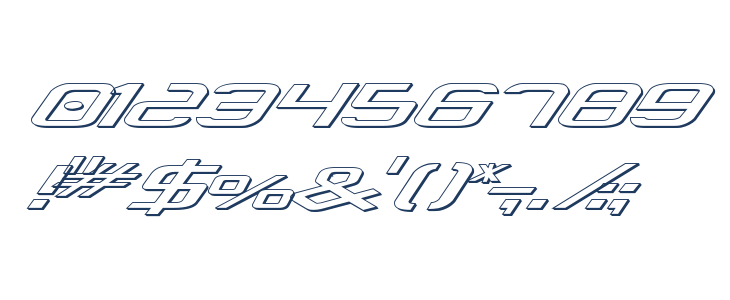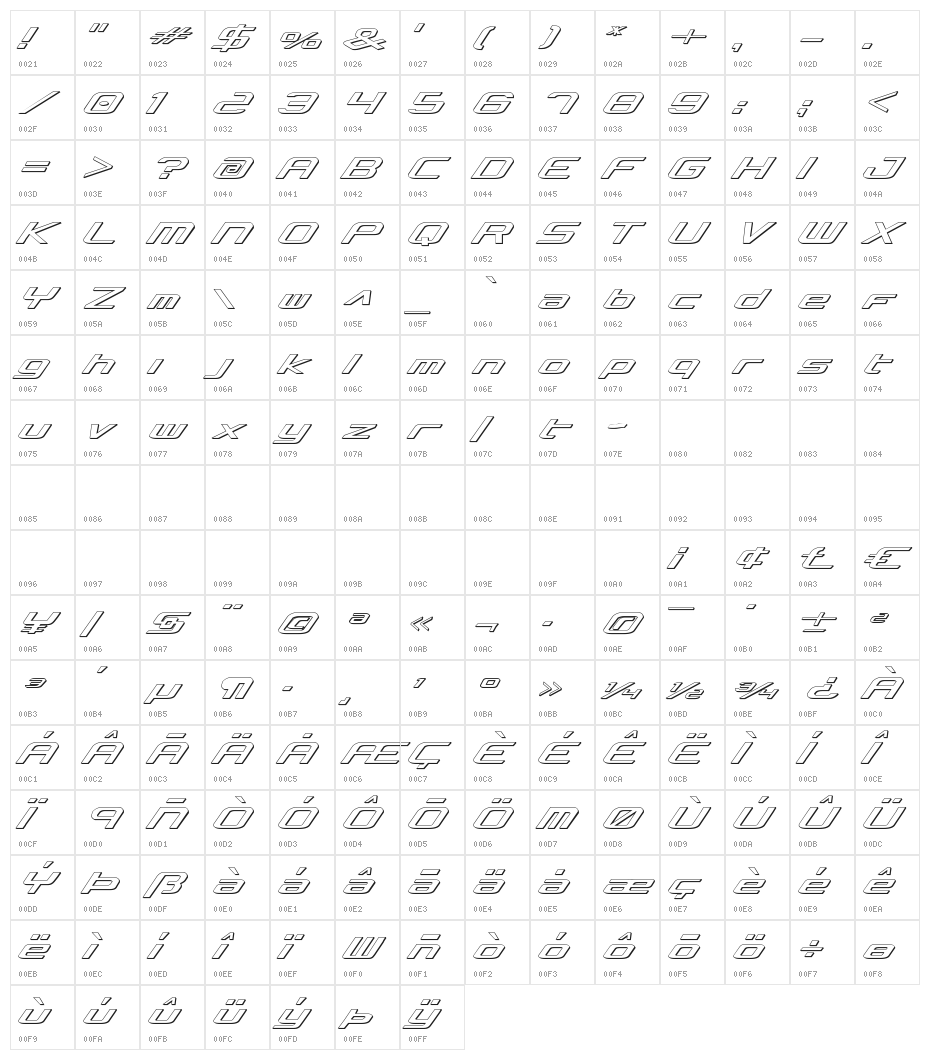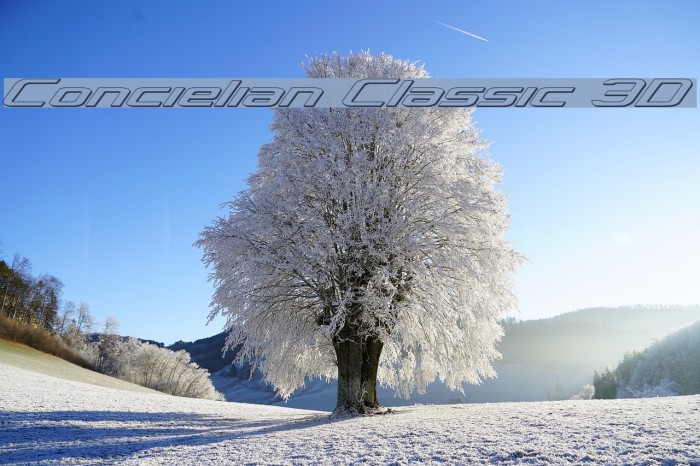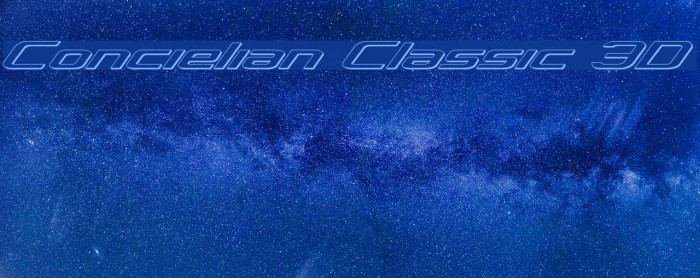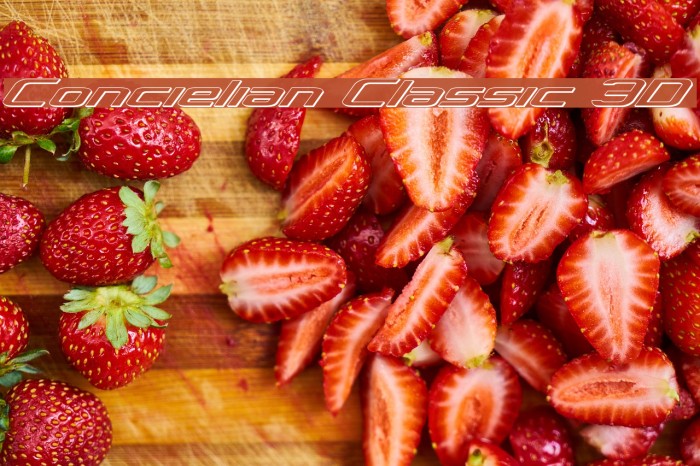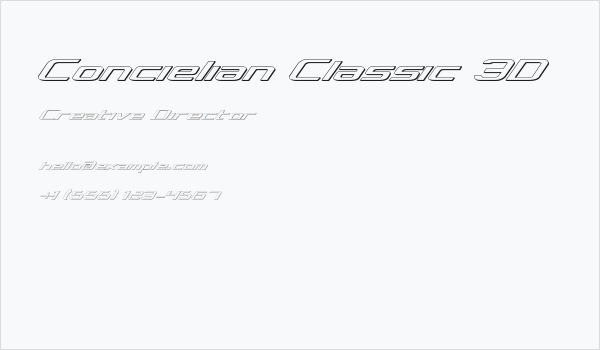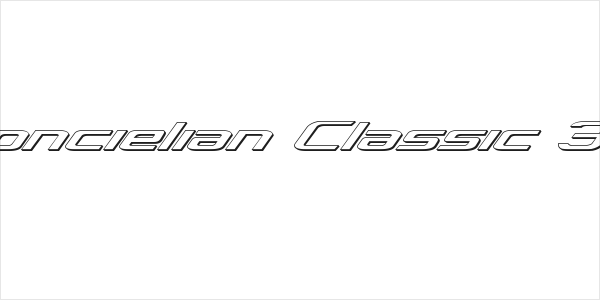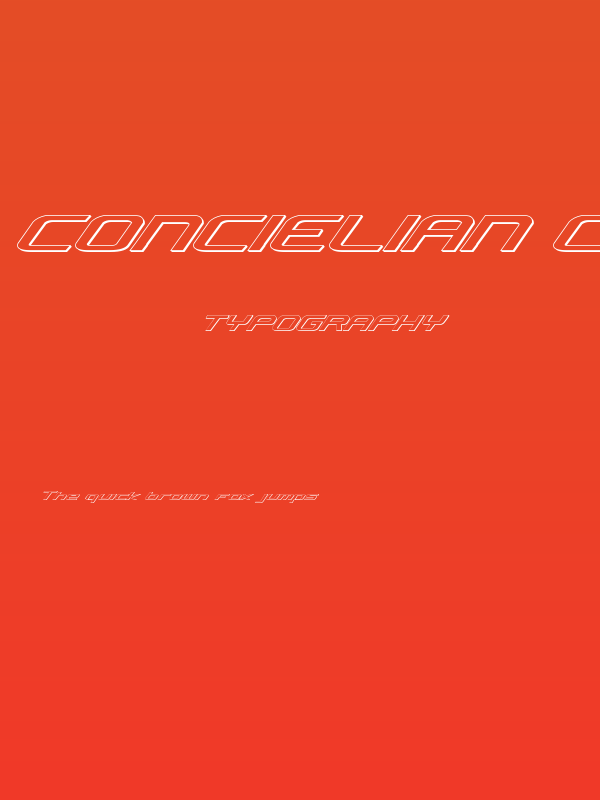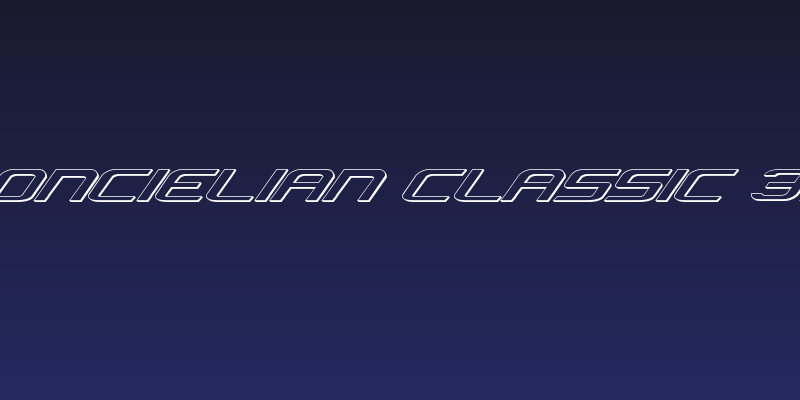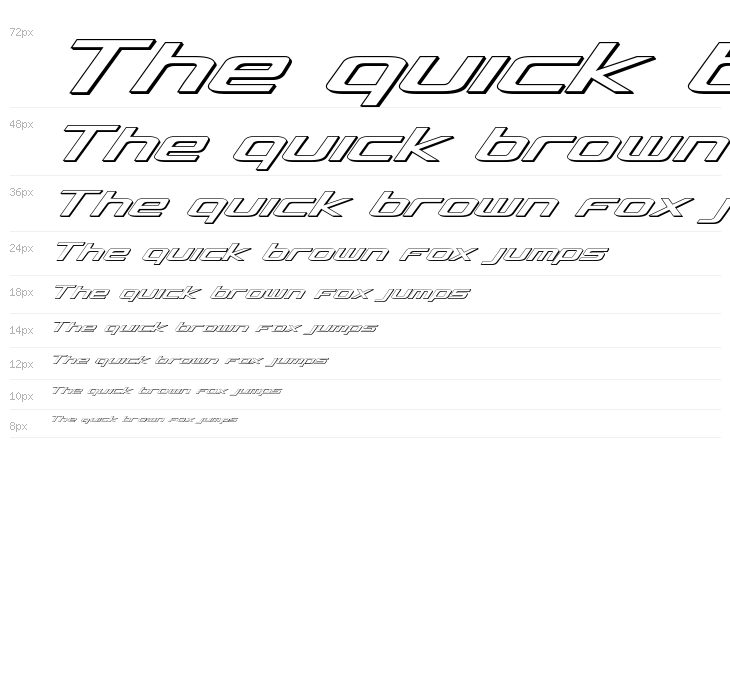
Concielian Classic 3D Font
Concielian Classic 3D Description
This font features a bold, three-dimensional design with a futuristic and dynamic appearance. The characters are outlined, giving them a hollow look that enhances the 3D effect. The style is geometric with sharp angles and clean lines, creating a sense of movement and energy. The uppercase and lowercase letters maintain a consistent style, while the numerals and special characters complement the overall design. This font is ideal for projects that require a modern and eye-catching aesthetic.